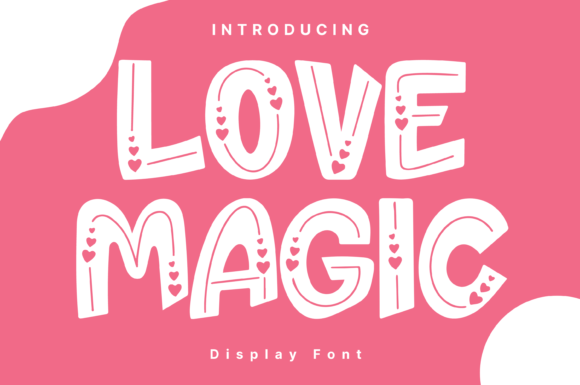
Prepare yourself to fall head over heels for Love Magic! Crafted by the talented AchiArt, this enchanting decorative font will cast a spell on your designs, making them utterly irresistible. Love Magic is the ultimate choice for those seeking a unique and eye-catching font. Its flawless curves and charming characters will add a touch of enchantment to any project, be it invitations, branding, logos, or social media graphics.
Dive into a realm of endless possibilities with Love Magic. Its versatility extends far and wide, from heartfelt wedding invitations that exude elegance to playful children's books that ignite imaginations. Whether you're designing posters for upcoming events or creating striking logos that demand attention, Love Magic will become your go-to font, whispering its sweet charm into every letter and word.
Unlike ordinary fonts, Love Magic possesses a magnetic aura that draws viewers in and holds them captive. Your designs will radiate an allure that sets them apart from the mundane. Imagine your creations adorned with Love Magic, enchanting your audience with its timeless beauty. Prepare to witness the magic unfold as Love Magic transforms your ordinary designs into extraordinary works of art.
Embrace the power of Love Magic and embark on a creative journey that knows no bounds. This decorative font is your secret weapon, granting you the ability to weave visual spells that mesmerize and captivate. Dare to be bold and let Love Magic cast its enchanting spell upon your designs.